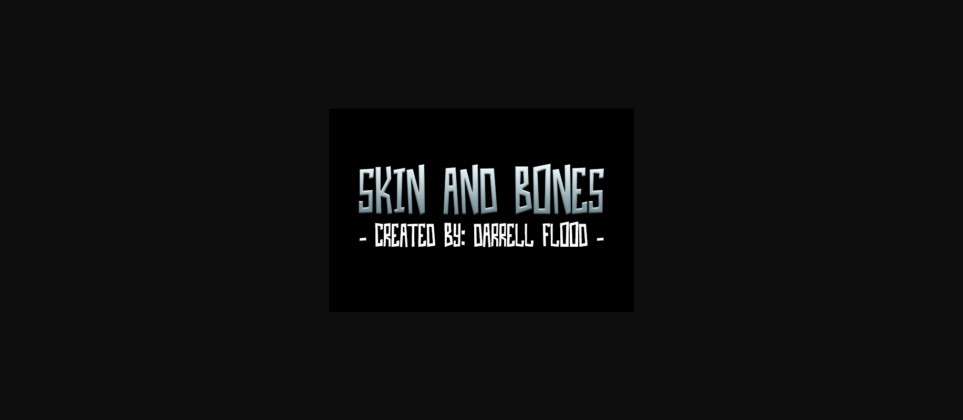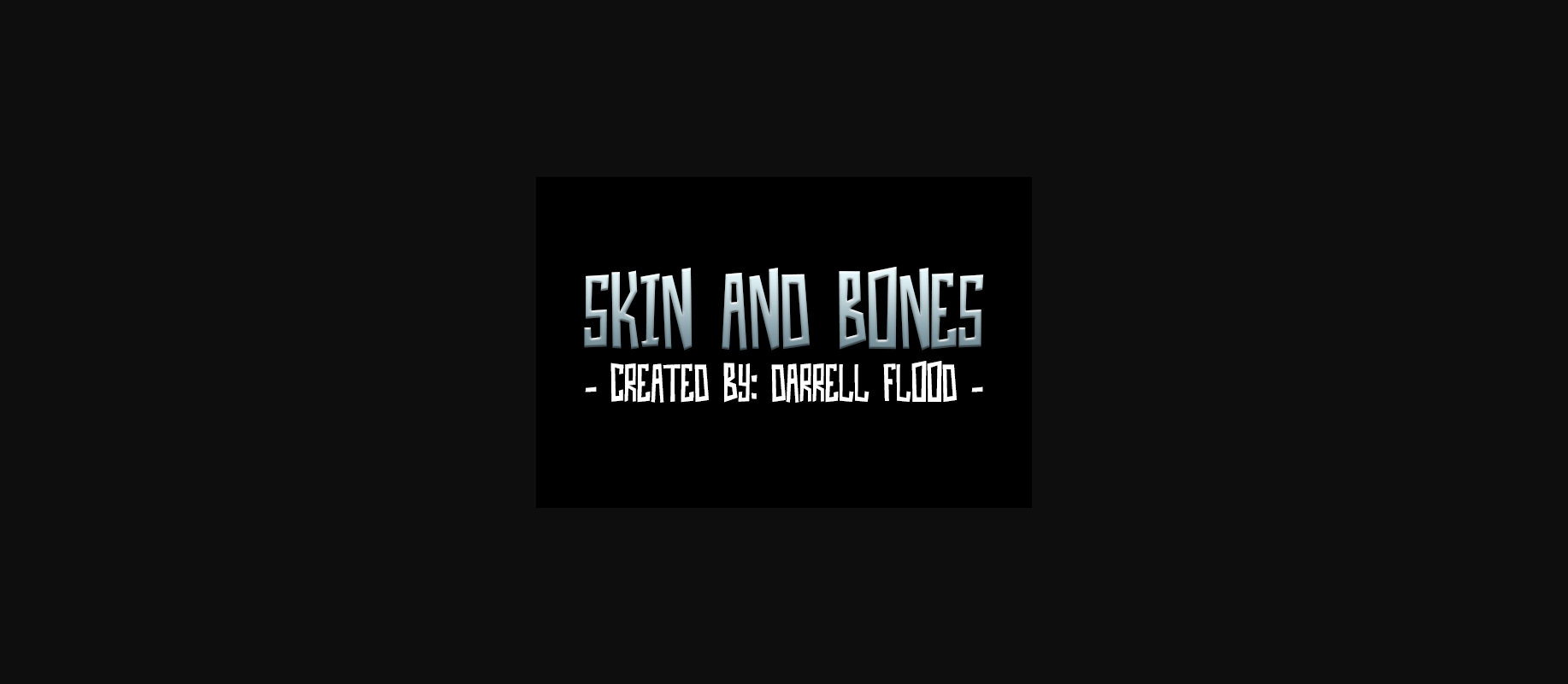
Skin and Bones Font
About Skin and Bones Font
Skin and Bones is a fun decorative font created by Darrell Flood. The Skin and Bones font works great as headline and is sure to leave an impression.